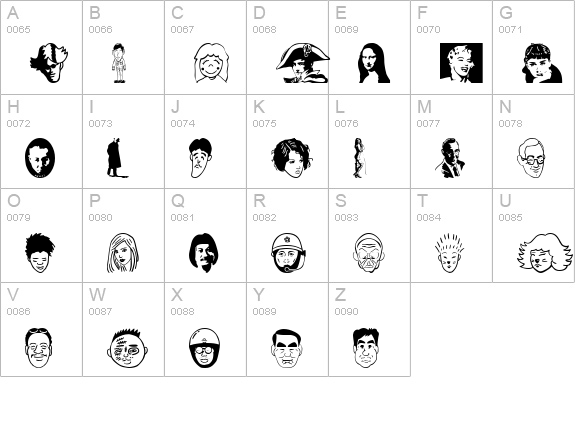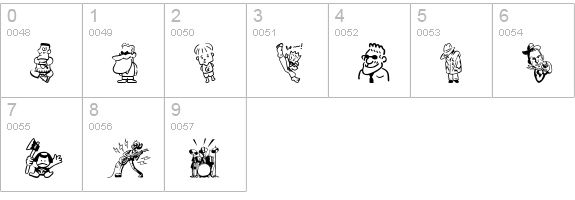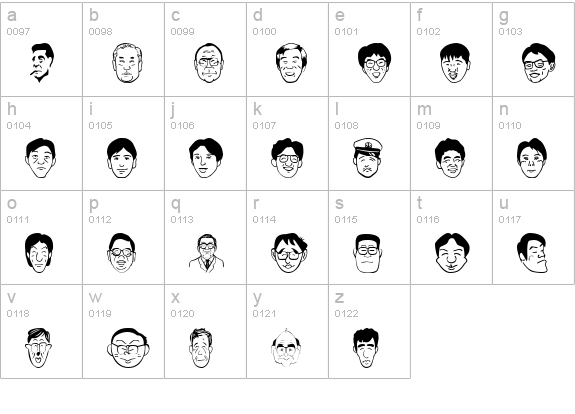
SakabePeople02 Font Details
Introducing SakabePeople02, a stunning and versatile font that seamlessly blends elegance with a touch of playfulness. This unique typeface is perfect for adding a dash of personality to any project, whether it's a creative design, branding, or even a heartfelt message. SakabePeople02 features a captivating combination of clean lines and subtle curves, creating a balanced and harmonious aesthetic. Its letters are meticulously crafted to exude a sense of sophistication, making it ideal for both professional and personal use. One of the outstanding qualities of SakabePeople02 is that it is absolutely free. Yes, you read that right - this extraordinary font is freely available to download at FontsMarket.com. This means that you can effortlessly enhance your creative endeavors without any additional costs or restrictions. With SakabePeople02, your imagination knows no bounds. Whether you're designing eye-catching logos or crafting visually stunning posters, this font will effortlessly elevate your work to new heights. Its versatility allows it to adapt to various styles and themes, making it a go-to choice for designers seeking a font that can effortlessly capture attention. So why wait? Take advantage of the incredible opportunity to enhance your projects with SakabePeople02. Download this remarkable font for free at FontsMarket.com and unlock a world of endless creative possibilities. Let SakabePeople02 be the missing piece that completes your design puzzle and leaves a lasting impression on your audience.